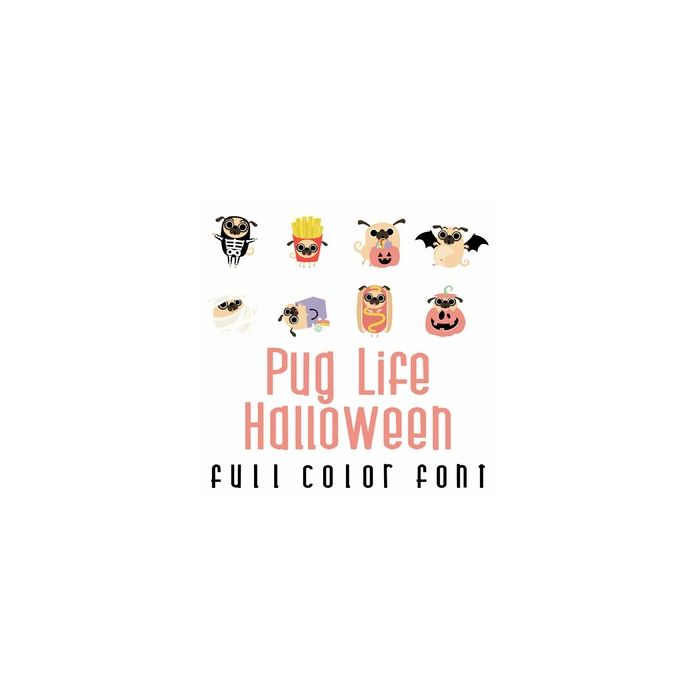
This adorable full color doodlebat font features cute pugs ready for Halloween. Perfect for cards, crafts, gifts, decor, scrap book pages, planner stickers and more!